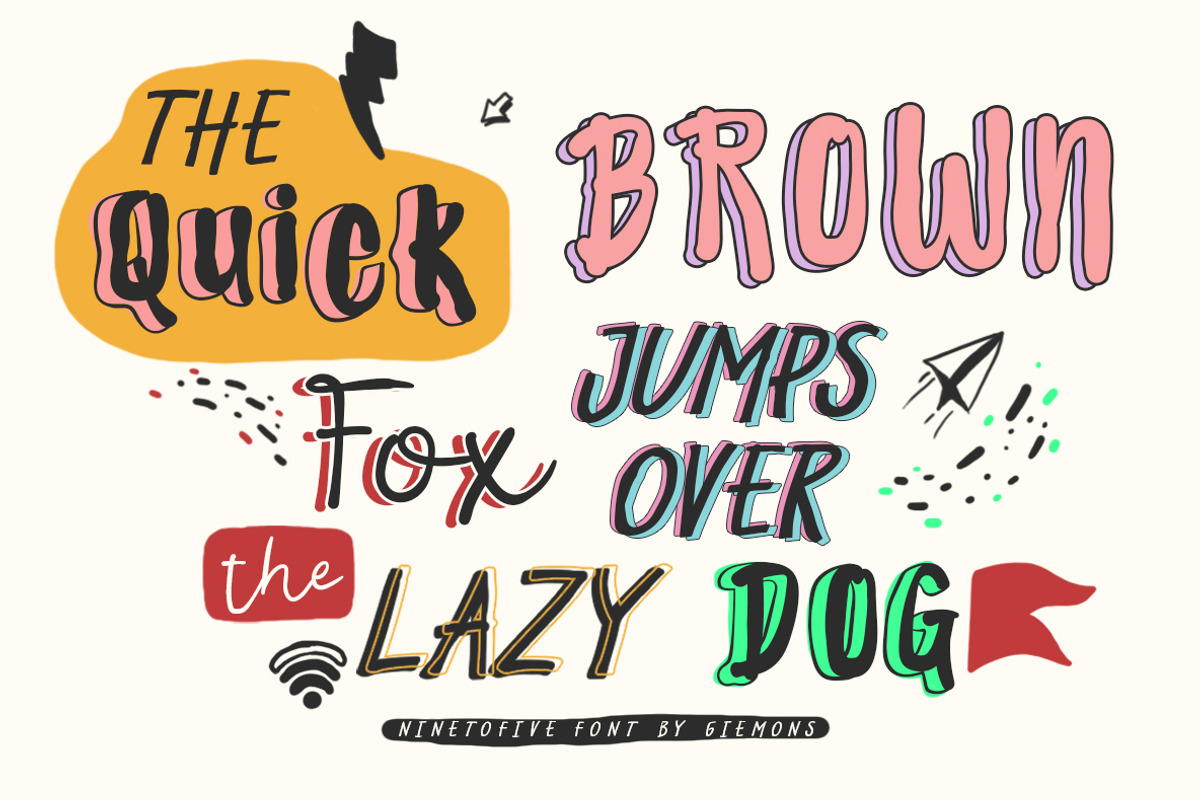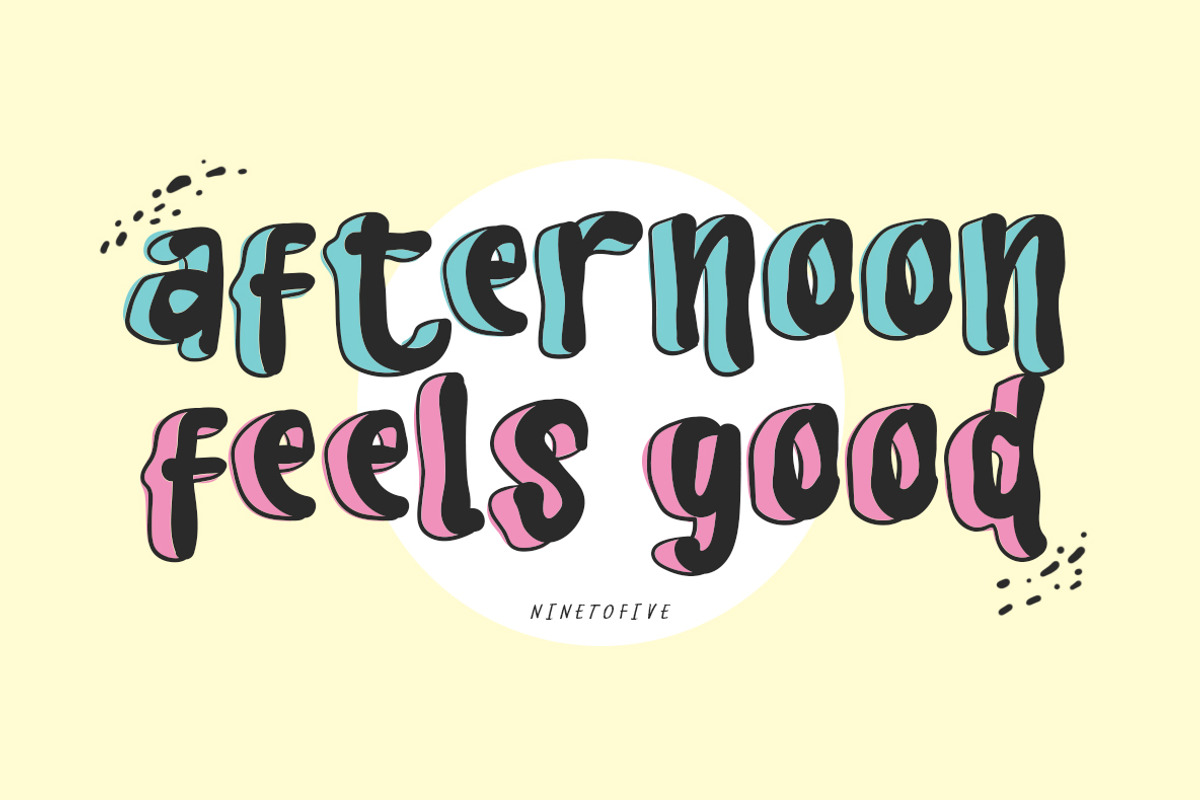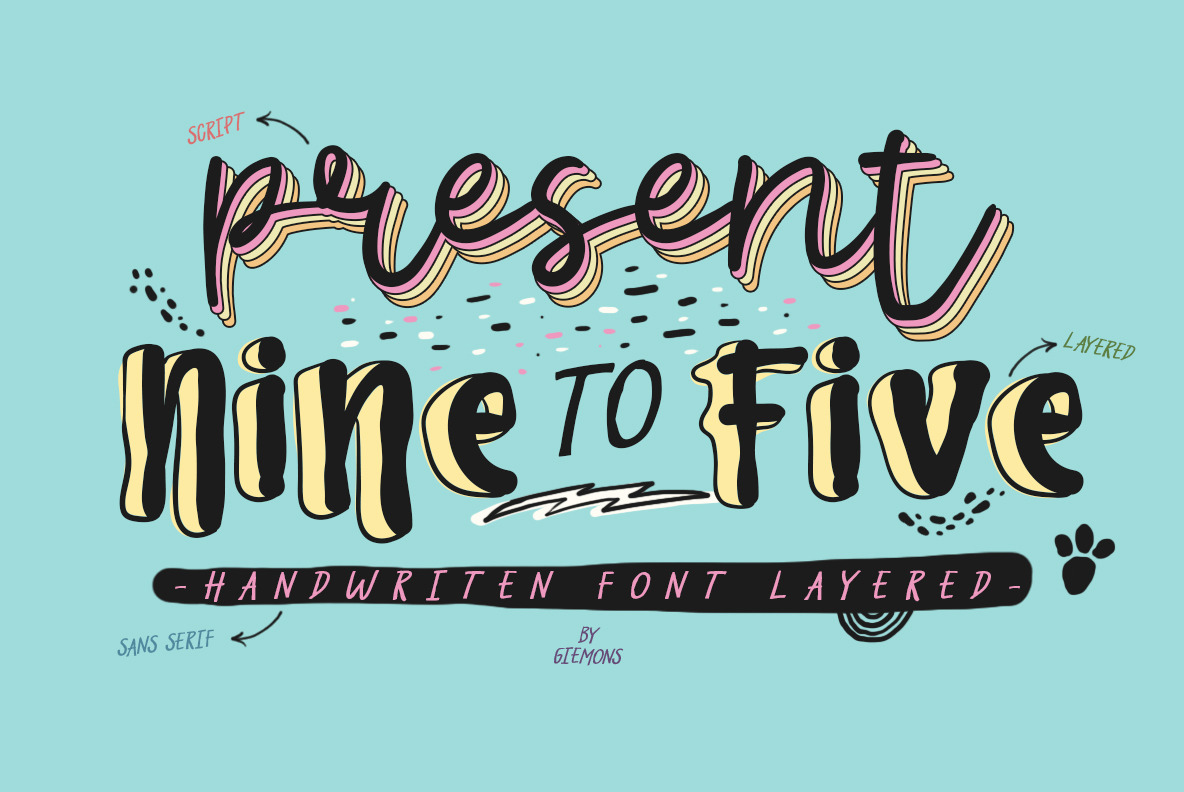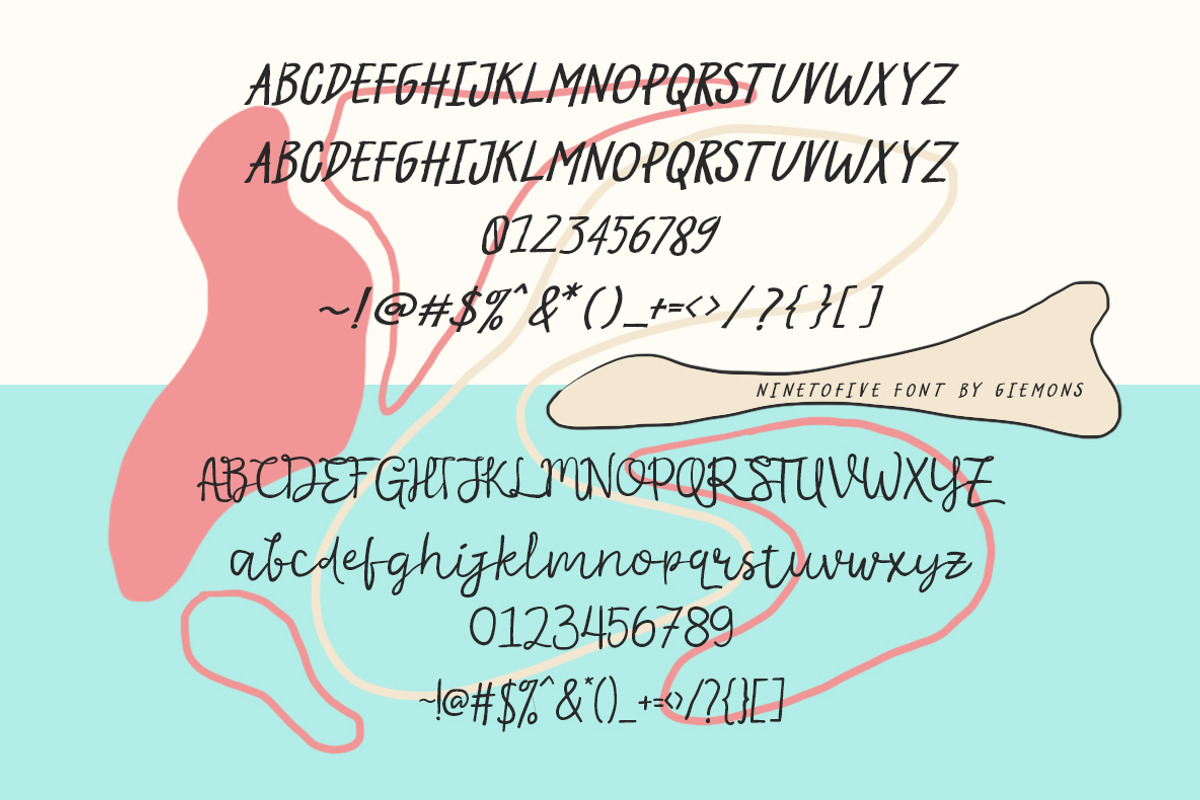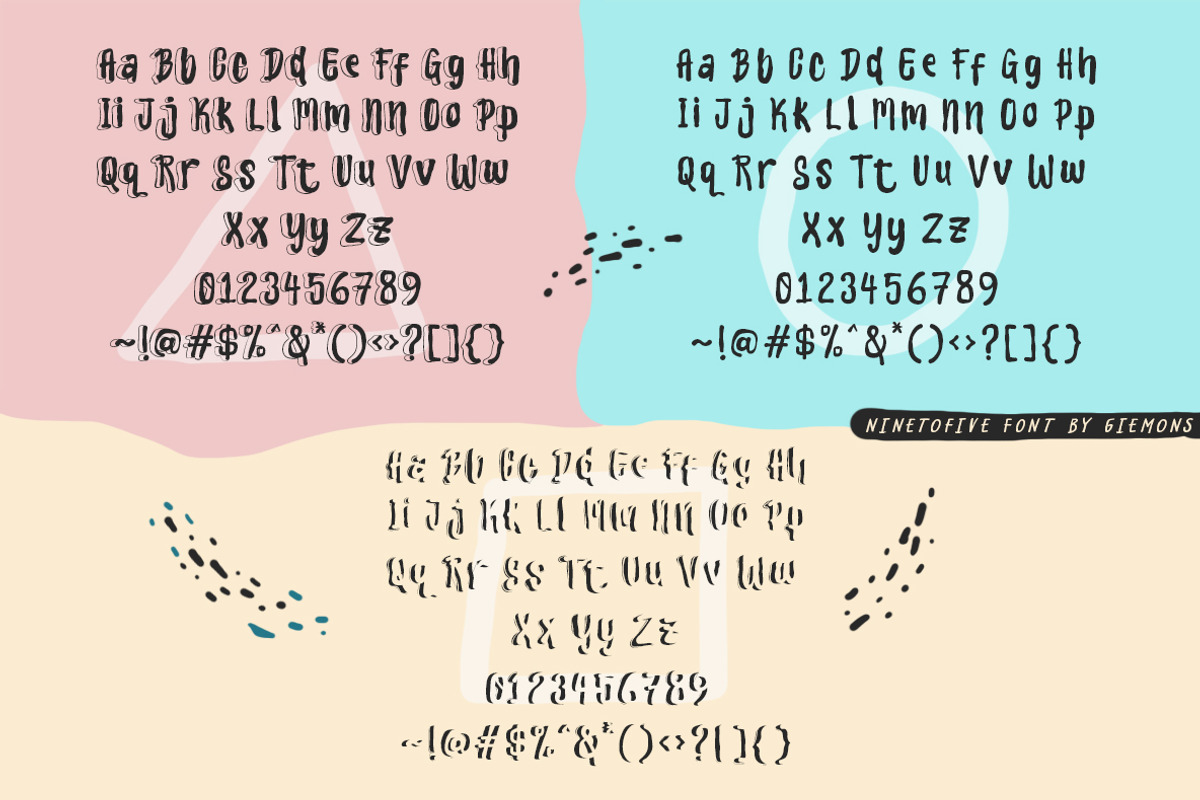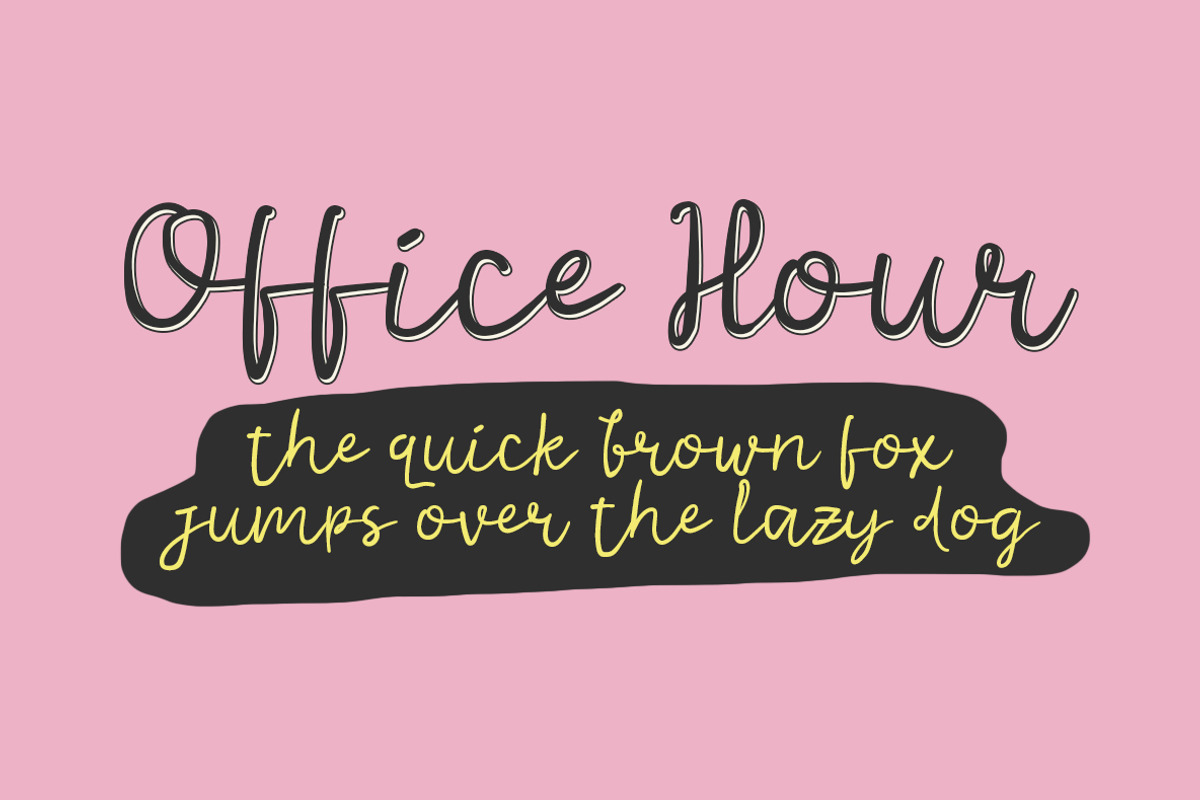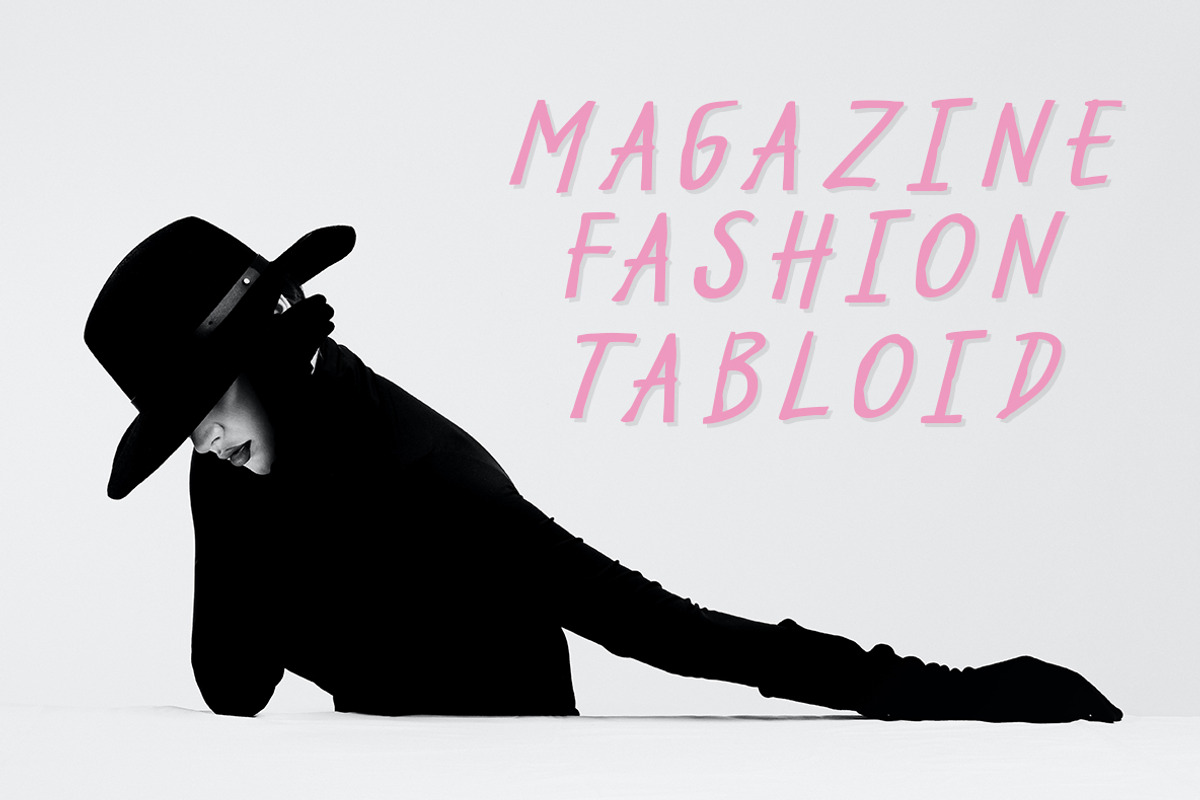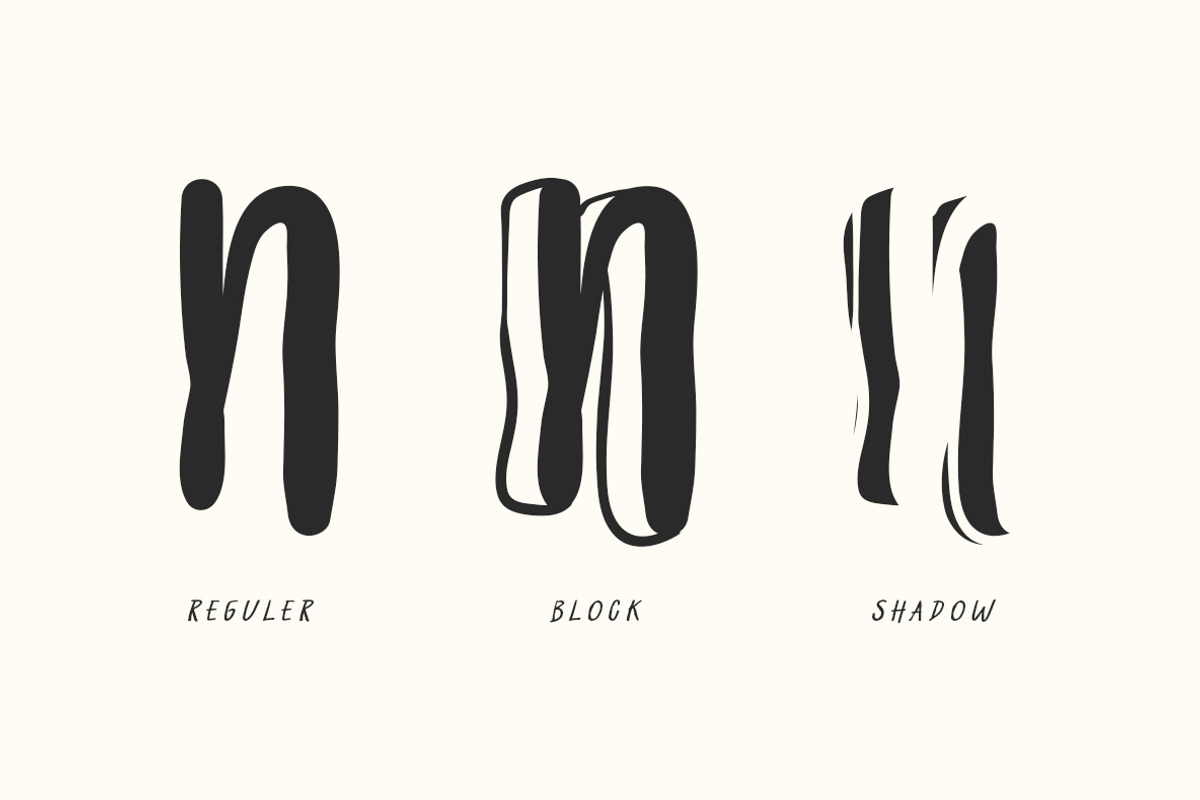
Nine to Five Fonts
NINETOFIVE HANDWRITEN FAMILY FONTS by GIEMONS
a NINTOFIVE Typeface ishanddrawing style Display Font. include 5 style font, reguler, script, sans serif font. Can make it easier to convey the message in your design. Use for awesome display, Logo, labeling, clothing, movie sceen, poster, movie title, gigs, album covers, logos, and much more.
- Reguler, Script, Sans Serif